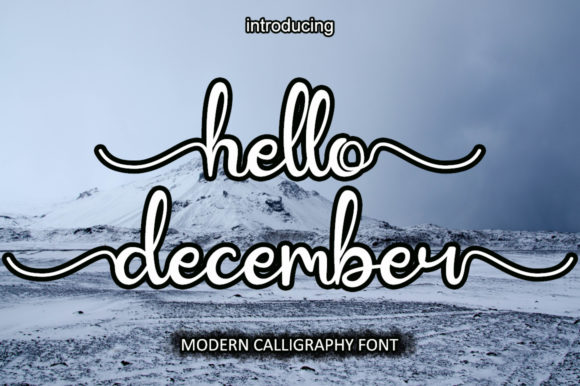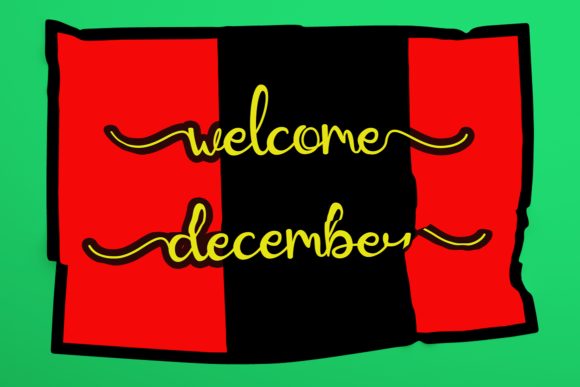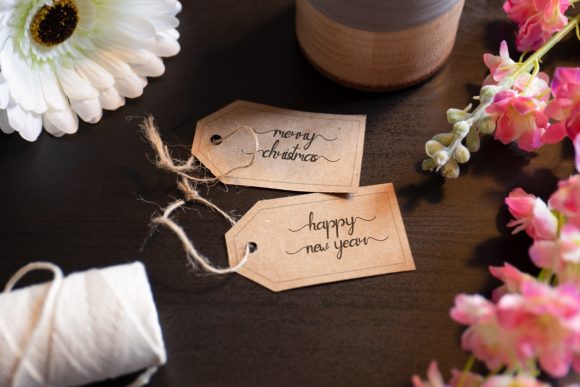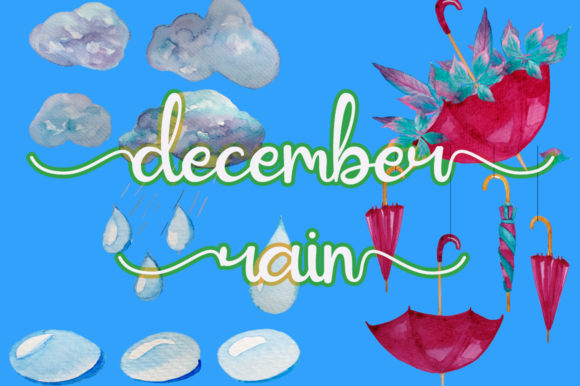
Hello December
About Hello December Font
Hello December is a sweet and delicate handwritten font. Fall in love with its incredibly versatile style and use it to create spectacular designs! This font is PUA encoded which means you can access all of the glyphs and swashes with ease!